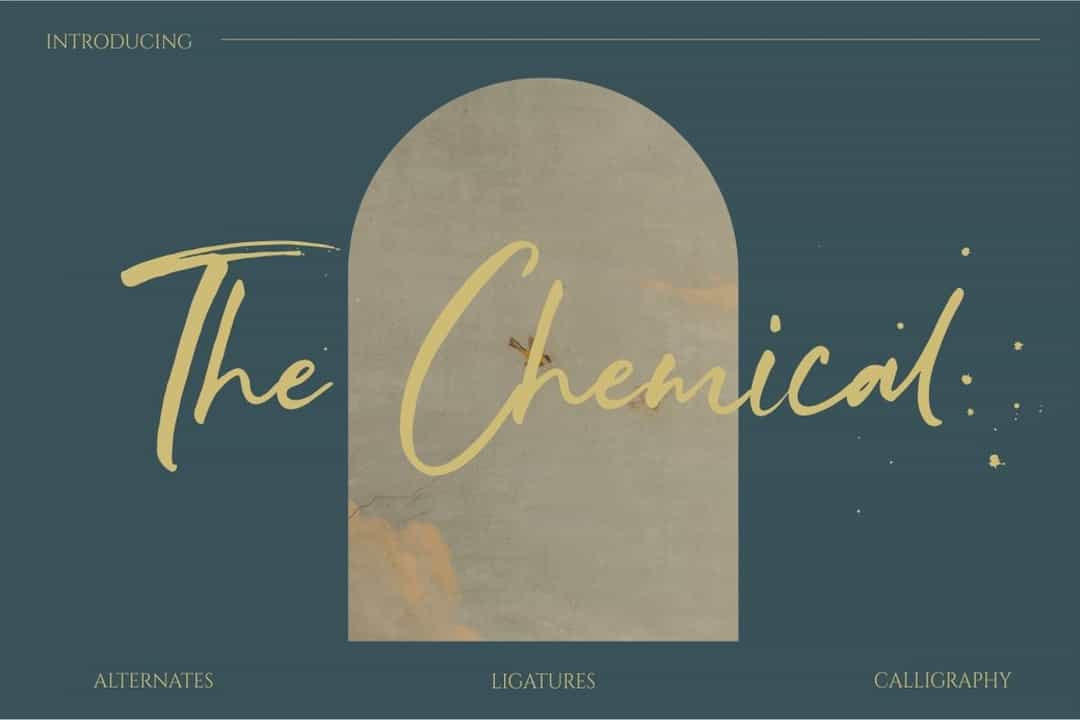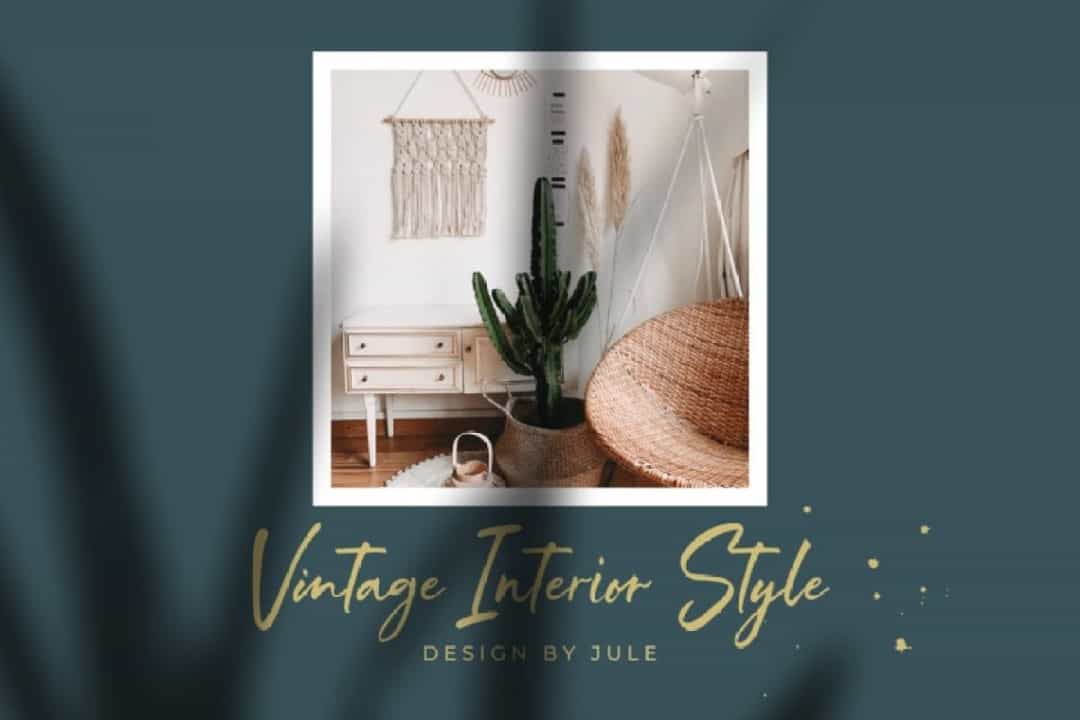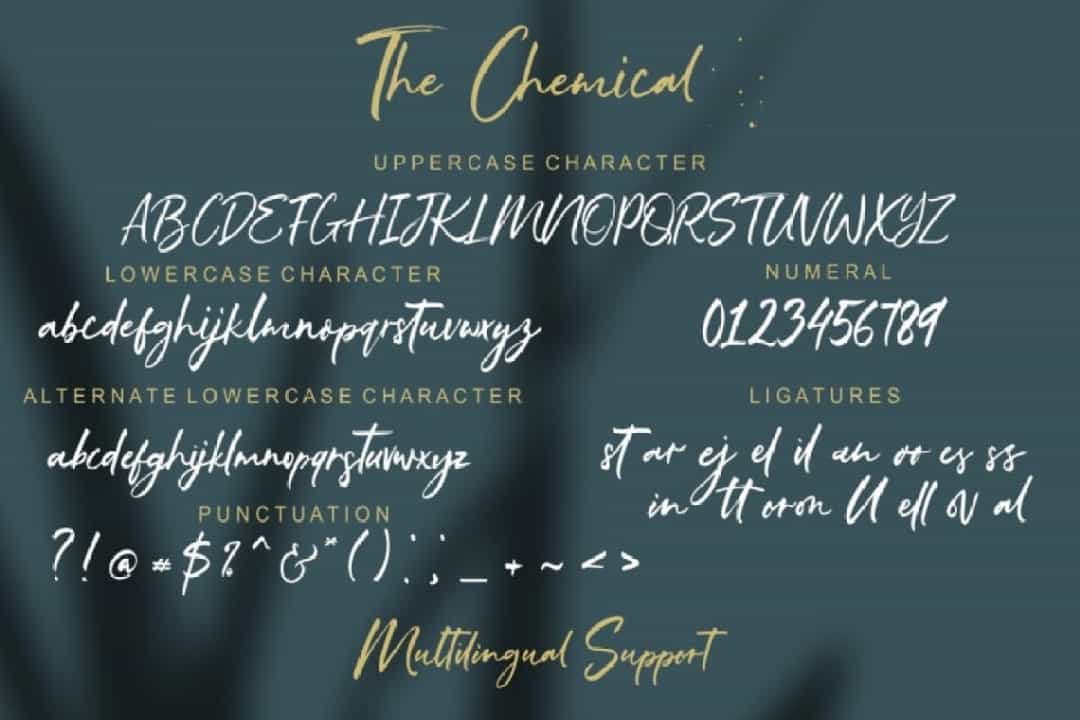
The Chemical is a simple brush script font with many letter alternates to give a rather unique and elegant look. This font also has all the lowercase and uppercase letters, numbers and other punctuation marks to meet your needs.